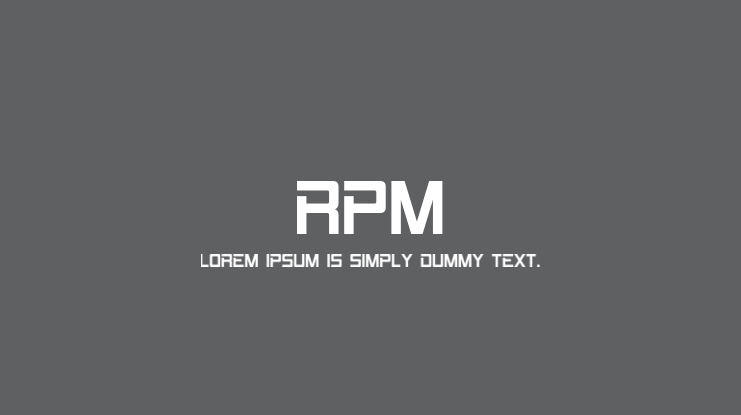
RPM Font Family
Neale Davidson
RPM is a stylized LCD face based on the character titles of Hasbro’s short-lived RPM (robot Powered Machines) line. Includes full alpha-numerics, euro, and extended punctuation. Includes regular, bold, italic, and bold-italic faces.